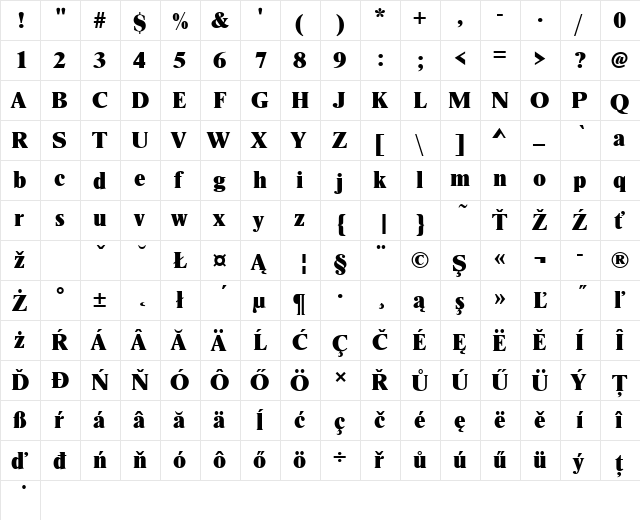
NimbusRomDEEExtBol Regular Font Preview
NimbusRomDEEExtBol Regular
Design Context for NimbusRomDEEExtBol Typeface
NimbusRomDEEExtBol is a composed and adaptable typeface that performs quietly and consistently across a wide range of design contexts.